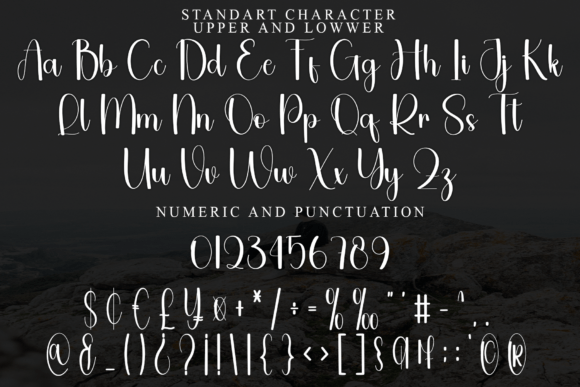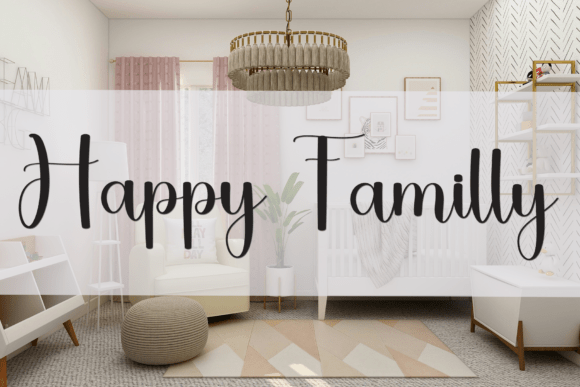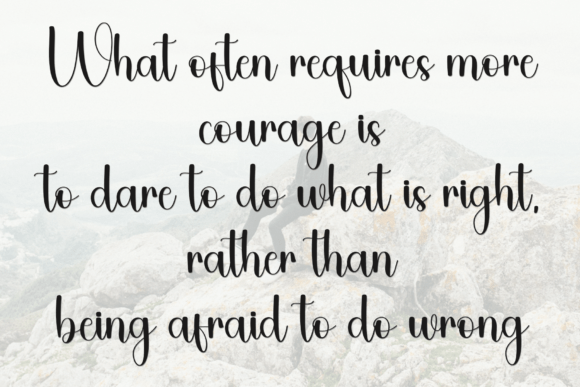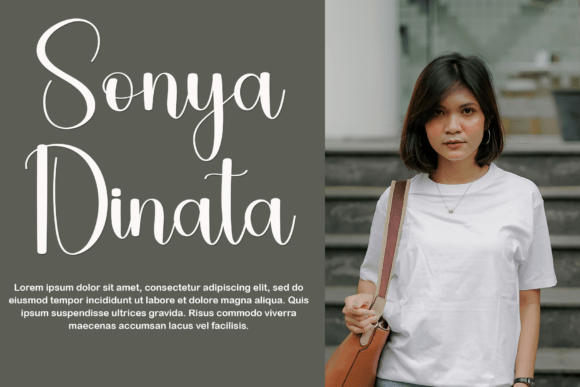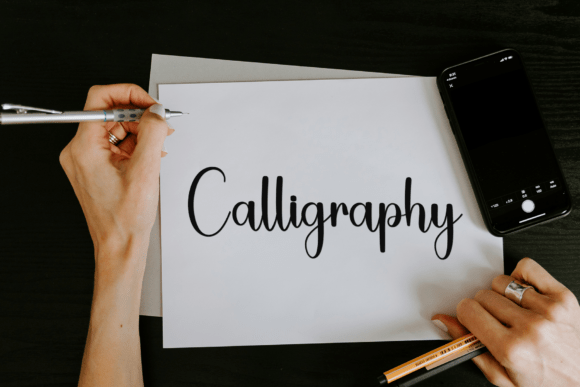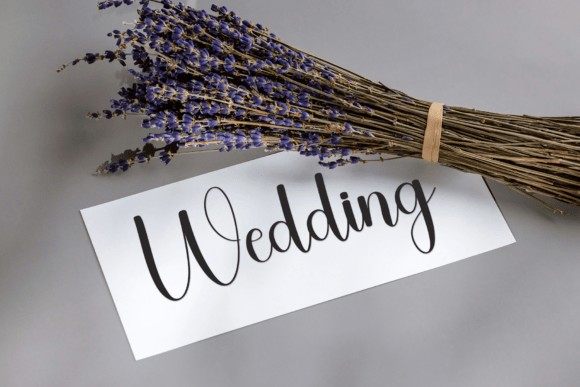
Introduction to Pantry Banana Font Font
Fonts play a crucial role in design, and the Pantry Banana Font font is a typeface that brings both character and versatility to any project. Whether you’re working on a branding project, a website, or a print design, the Pantry Banana Font font offers a unique style that can elevate your work.
Pantry Banana is a stylish and incredibly elegant script font.
It looks stunning on wedding invitations, thank you cards, quotes, greeting cards, logos, business cards and every other design which needs a handwritten touch .
Key Features of Pantry Banana Font Font
• ✅ High-quality typeface designed for professional use
• ✅ Includes a wide range of glyphs and characters
• ✅ Ideal for logos, branding, websites, and print
Why Choose Pantry Banana Font Font?
The Pantry Banana Font font is more than just a typeface – it’s a design tool that helps you communicate your message with style and clarity. Its unique character set and versatile design make it suitable for a wide range of applications, from elegant invitations to bold headlines.
With its carefully crafted letterforms and balanced proportions, the Pantry Banana Font font ensures readability and visual appeal across all mediums.
What makes Pantry Banana Font font special?
The Pantry Banana Font font stands out with its unique design, exceptional readability, and versatility across various design applications.